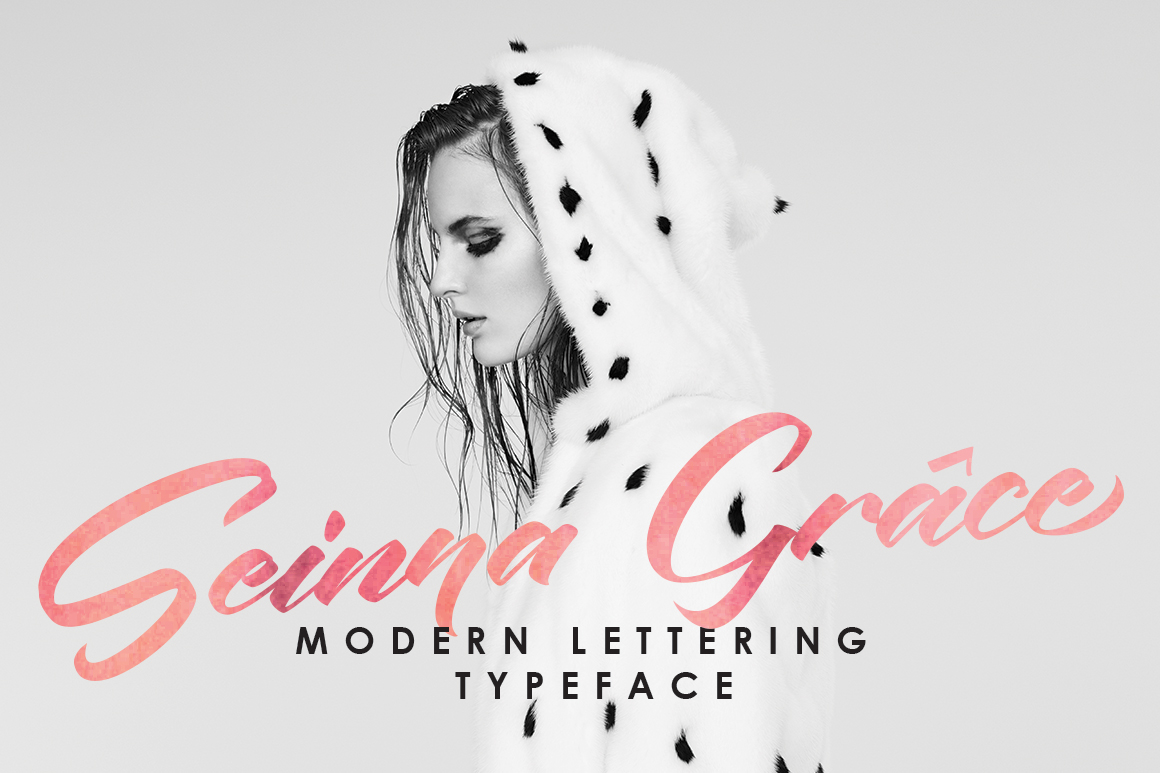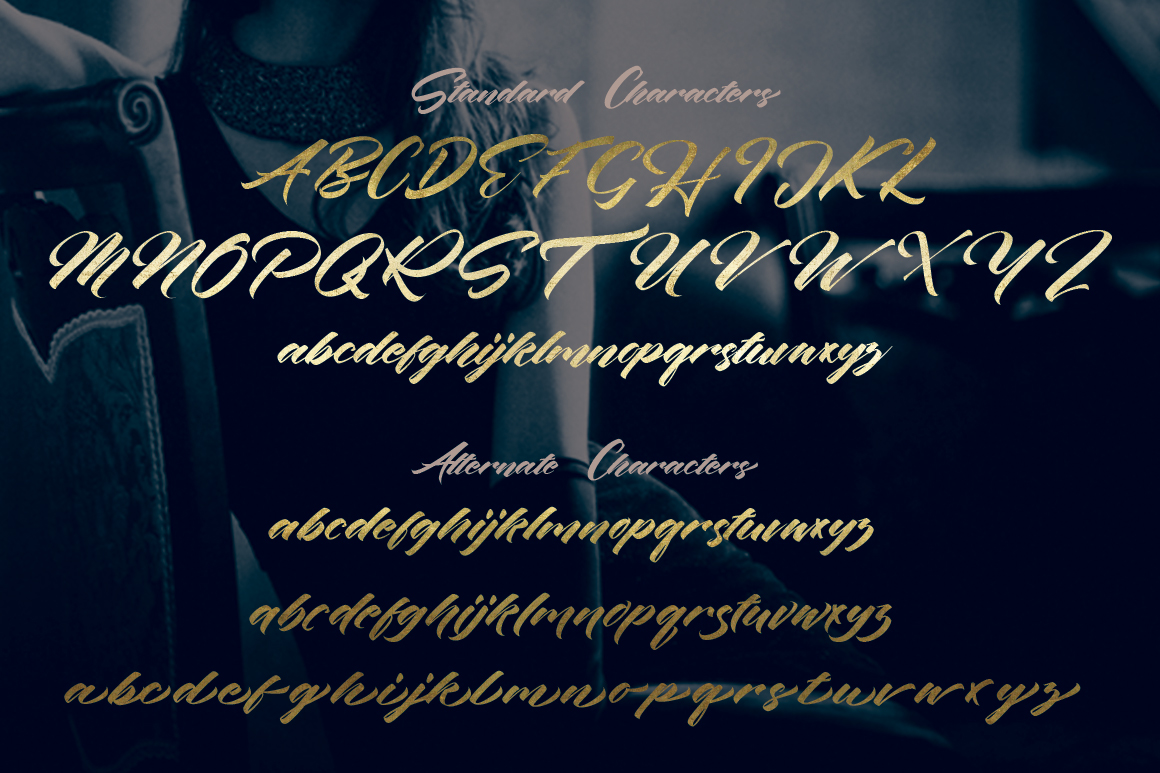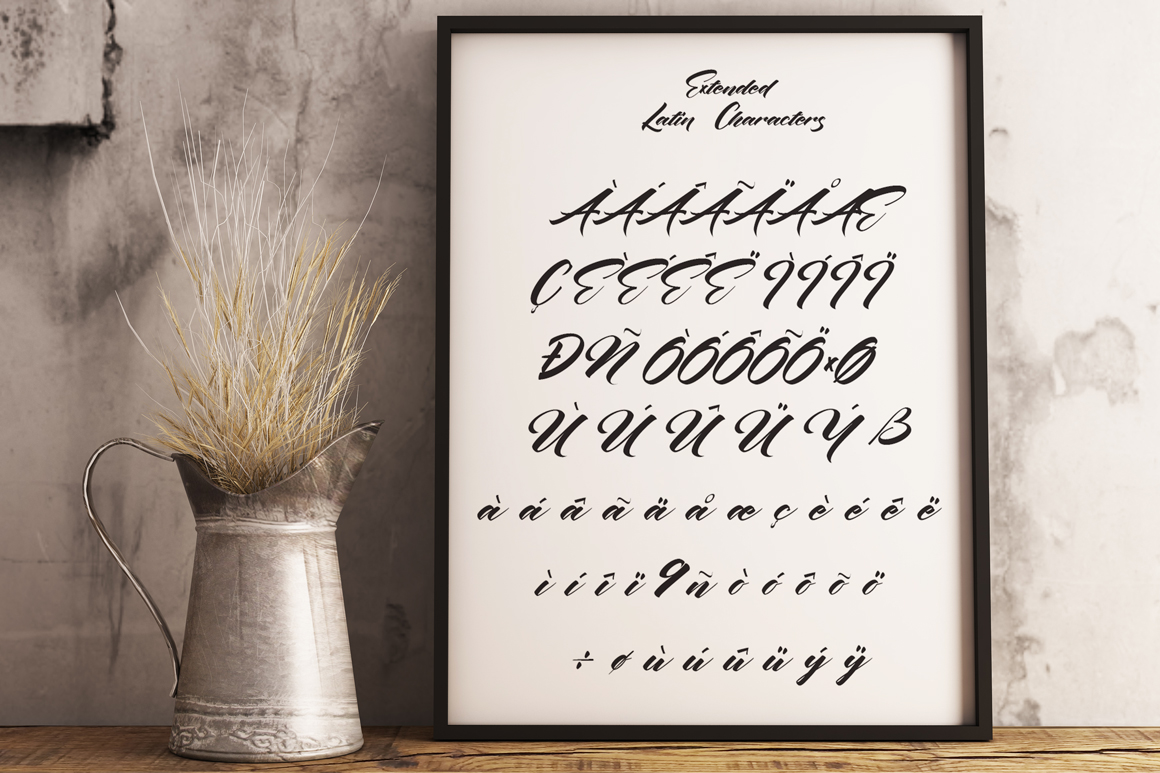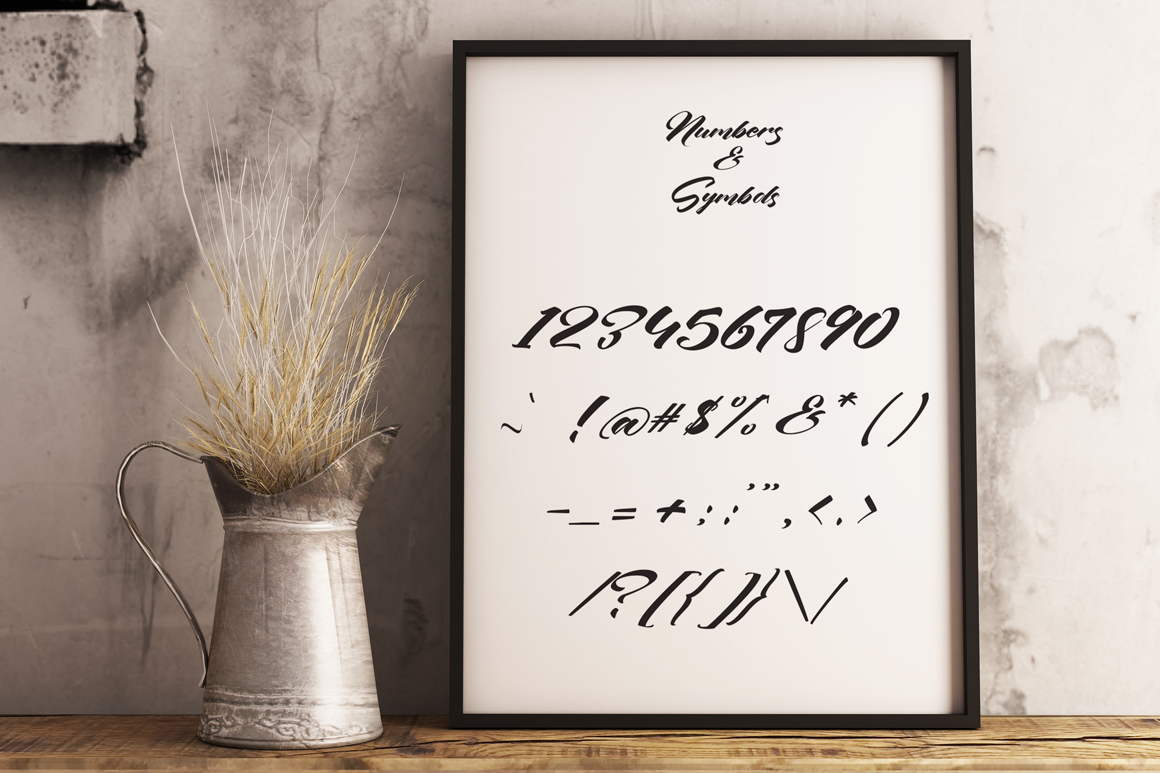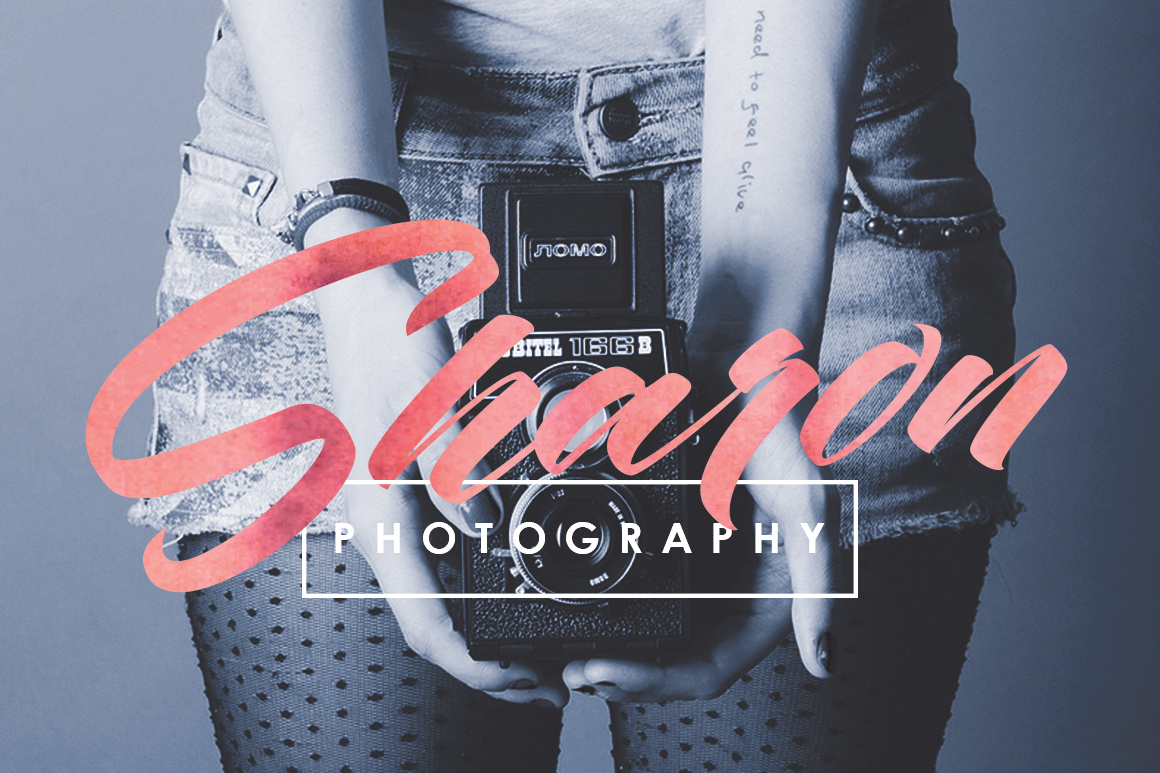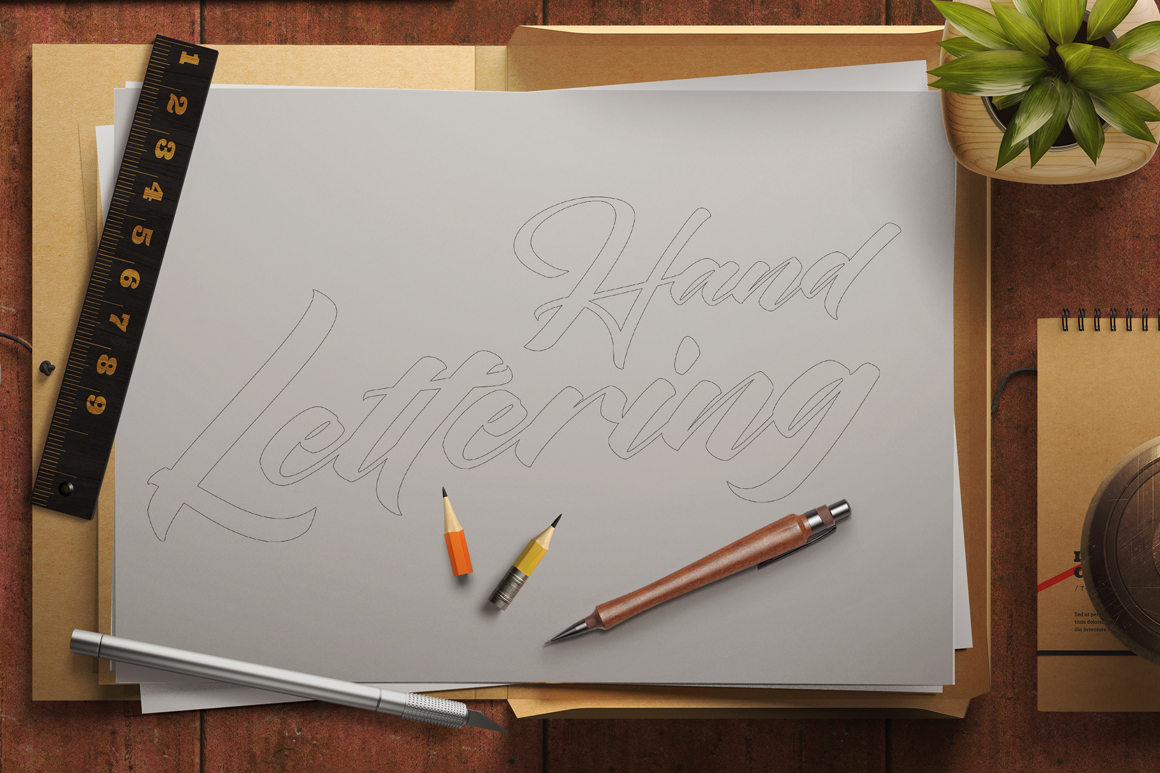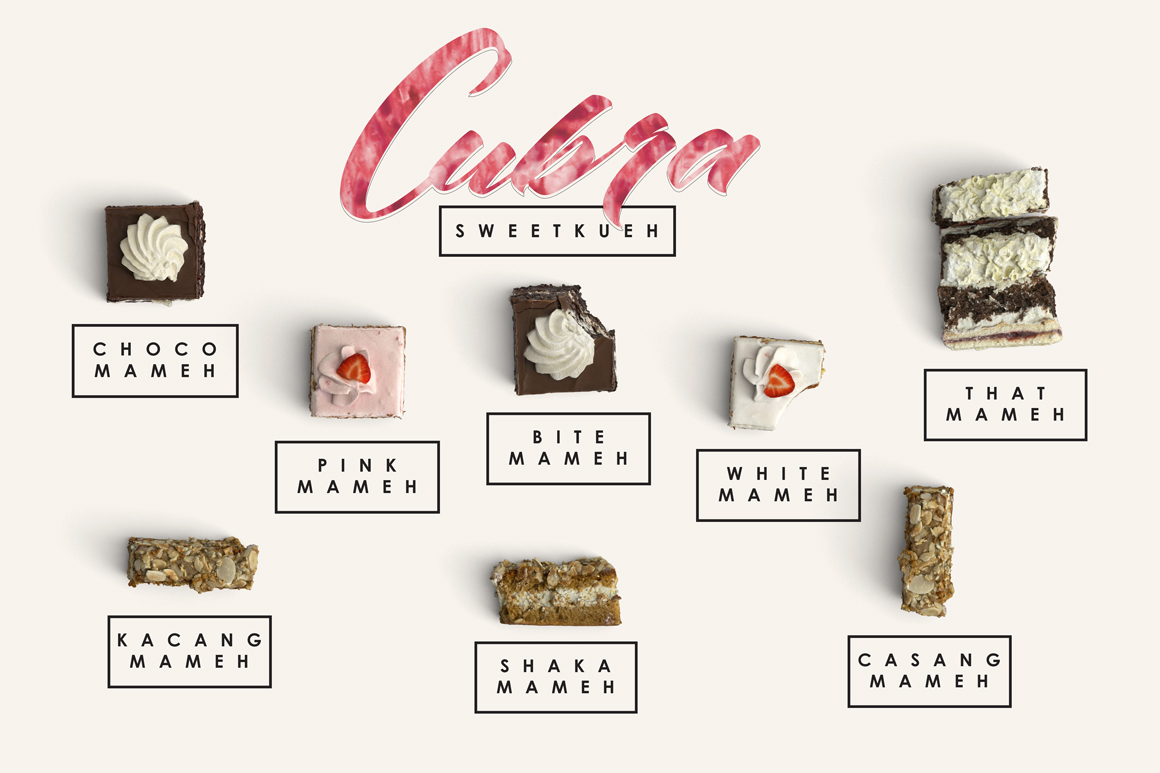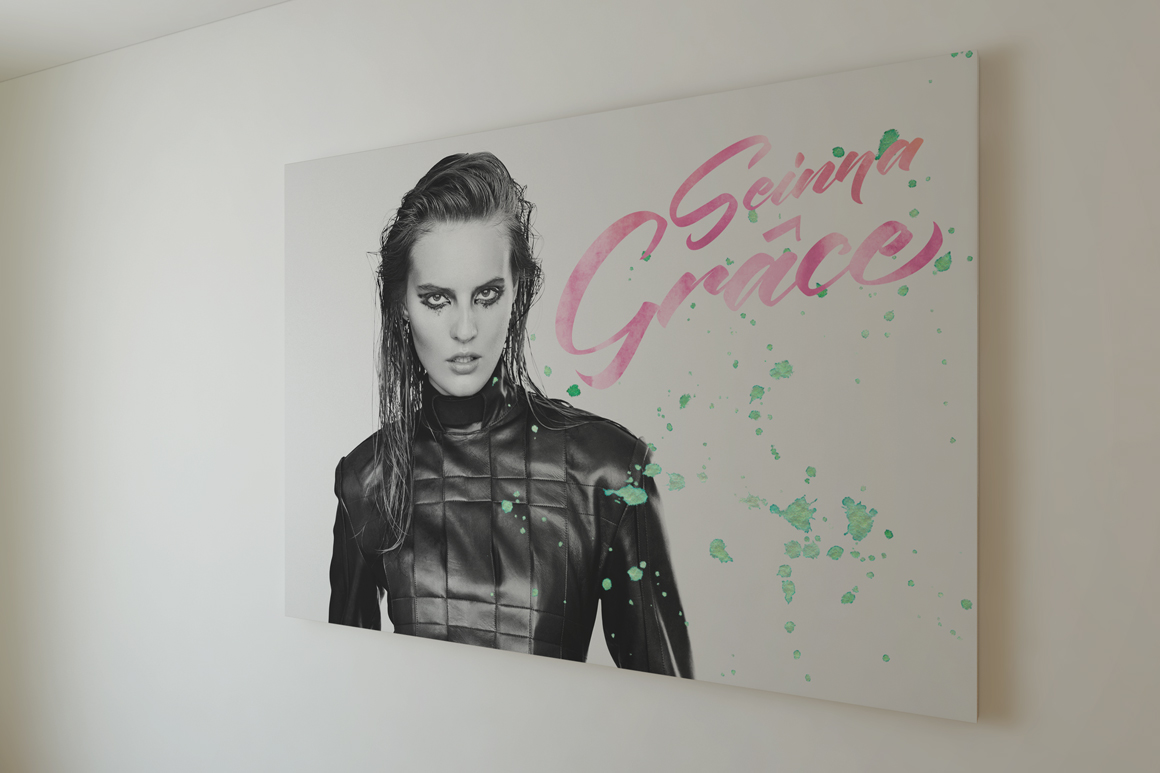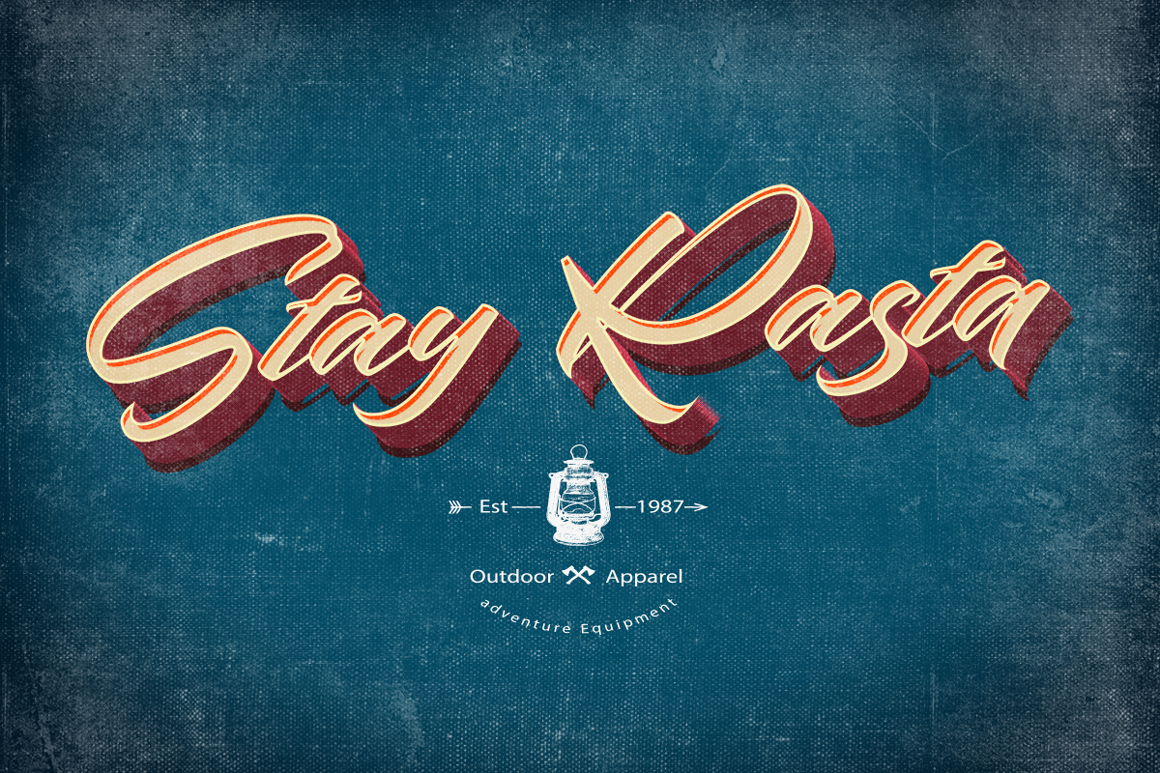
Seinna Grace Font
About Seinna Grace Font
Seinna Grace is a stunning, elegant script. The Seinna Grace is a modern font, that will work great in a large range of projects.